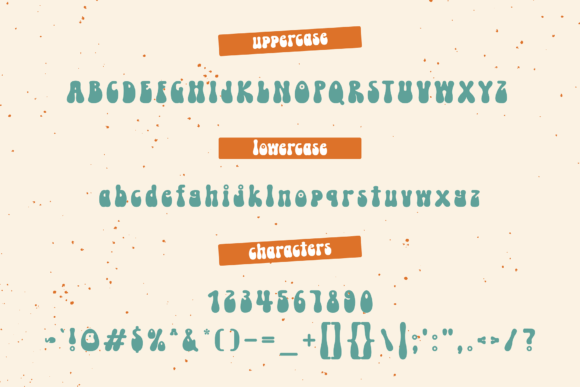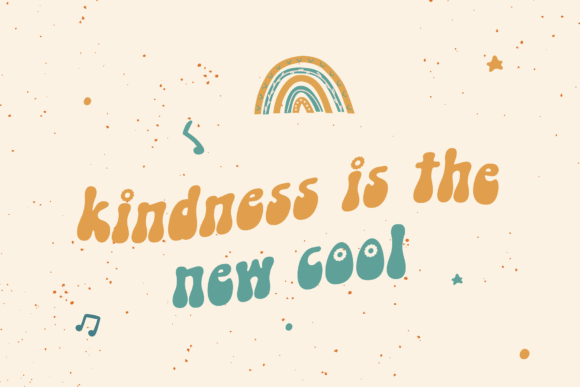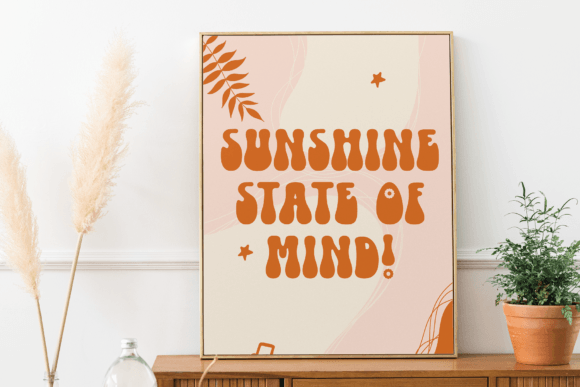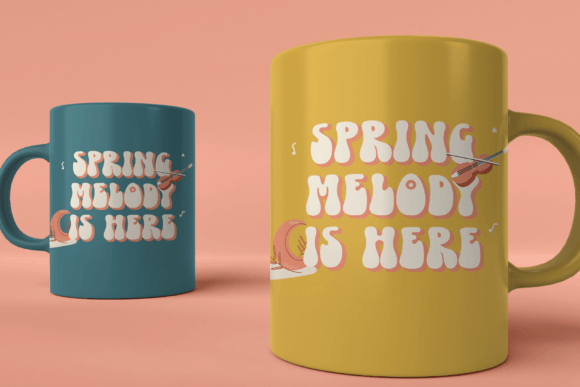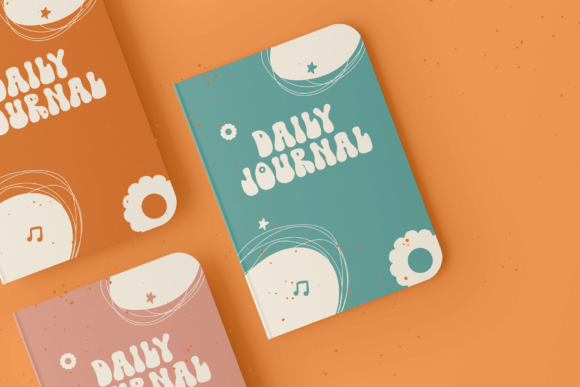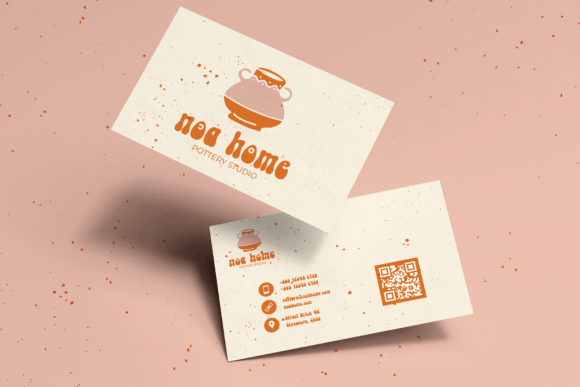
Introduction to Boho Melody Font
Introducing “Boho Melody,” a font that takes you on a thrilling time-travel journey to the heart of the 1970s.
With its groovy, retro-inspired design, this typeface captures the essence of a bygone era, channeling the spirit of bell-bottoms, disco balls, and peace signs Boho Melody seamlessly combines the chubby, old-style aesthetics of that iconic decade, giving your projects a unique and captivating charm.
Key Features of Boho Melody Font